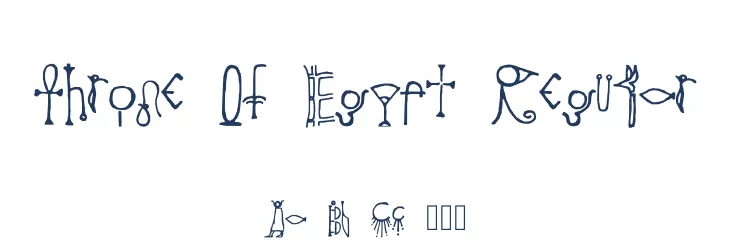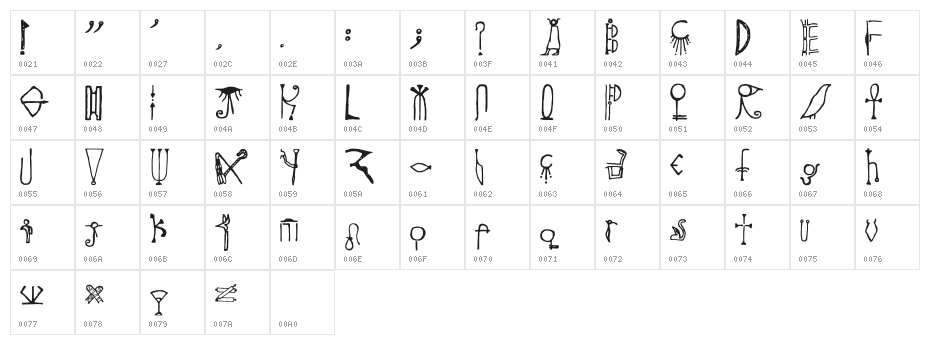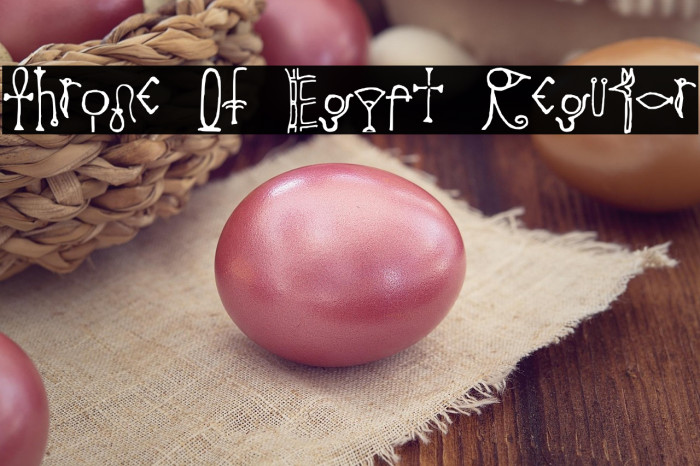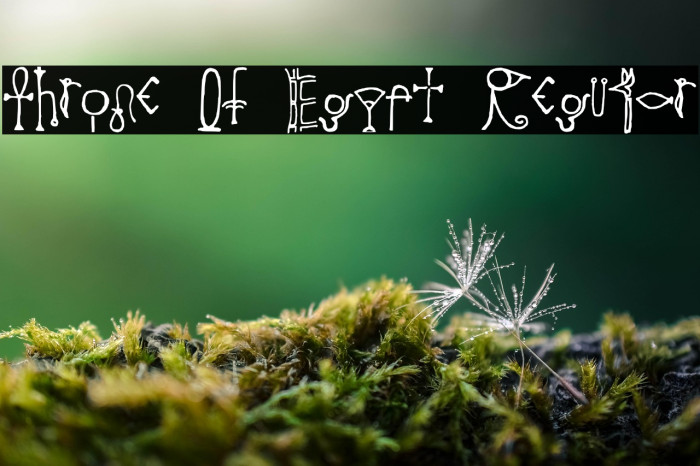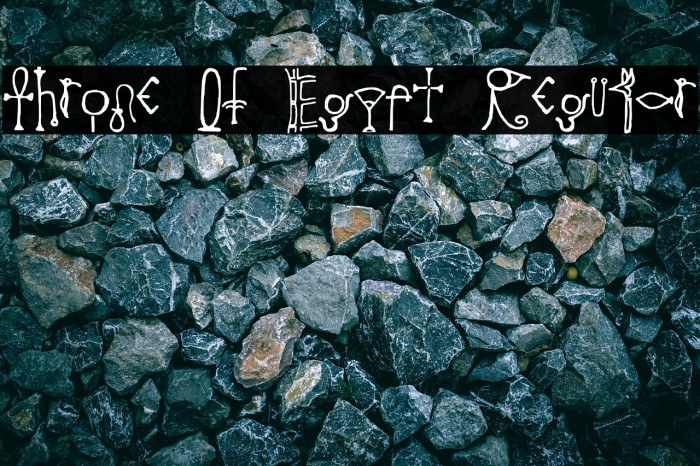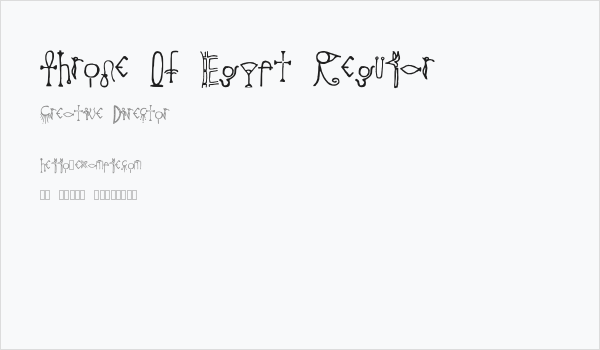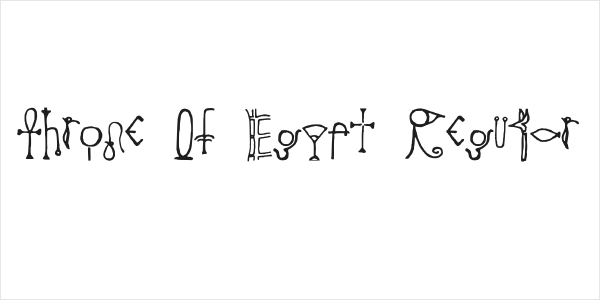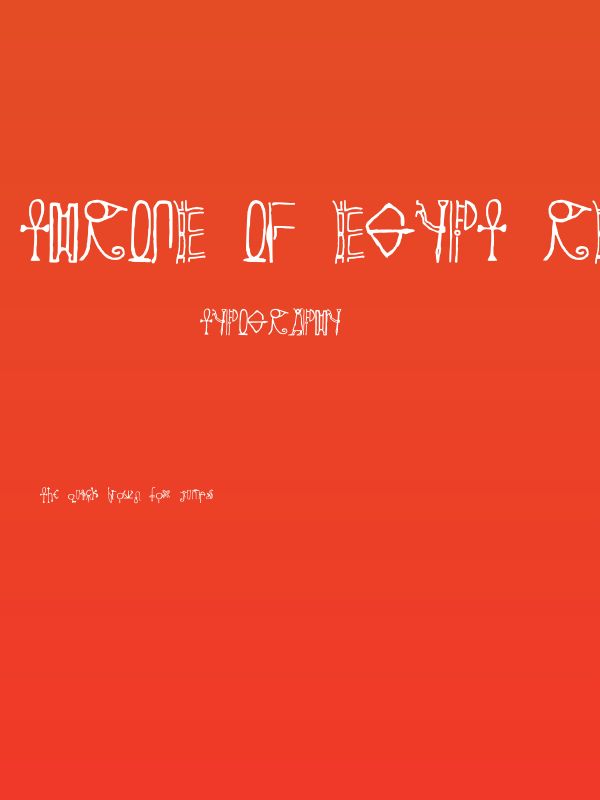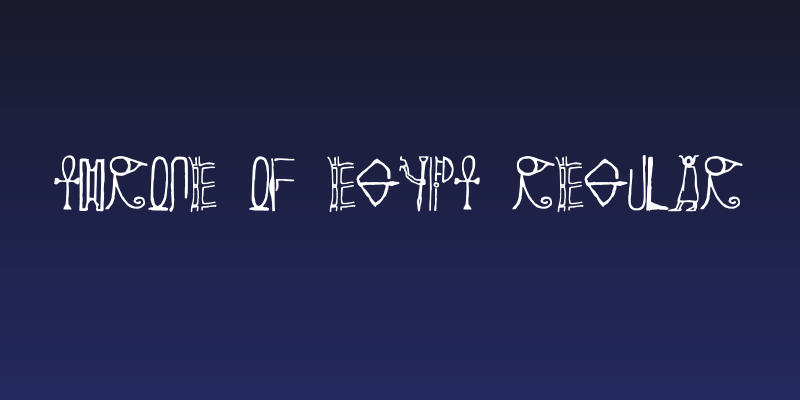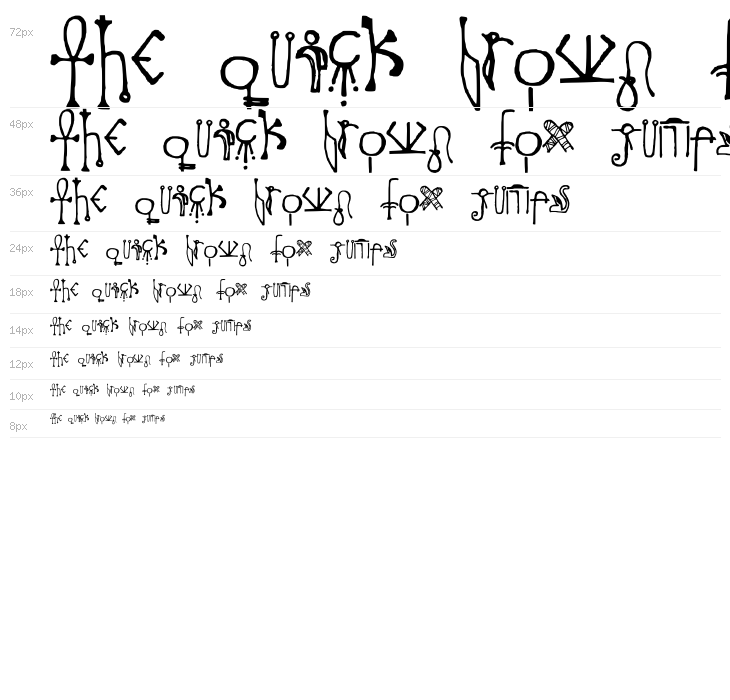
Throne Of Egypt Regular Font
Throne Of Egypt Regular Description
This font exudes an ancient and mystical aura, drawing inspiration from Egyptian hieroglyphs. Each character is intricately designed with unique, ornamental details that evoke a sense of history and mystery. The uppercase letters are particularly elaborate, featuring elements reminiscent of ancient symbols and artifacts. The lowercase letters maintain the same thematic style but with slightly less complexity, ensuring readability while preserving the decorative essence. The numerals and special characters follow suit, integrating seamlessly into the overall aesthetic. This font is perfect for projects that aim to capture an exotic, historical, or mystical theme.
| Use Case | Logos, Headlines, Themed Designs |
| Proposed Projects | Ideal for themed event invitations, historical documentaries, fantasy book covers, and museum exhibits. |